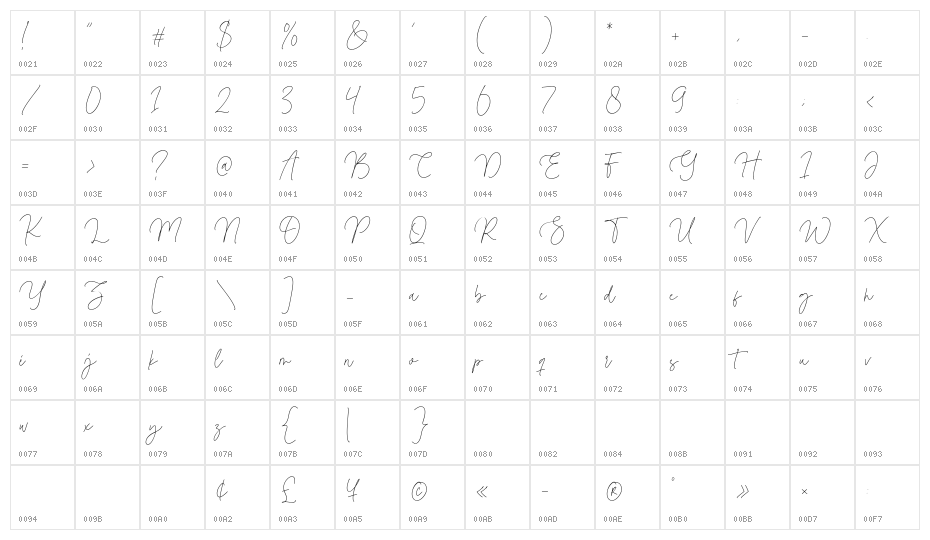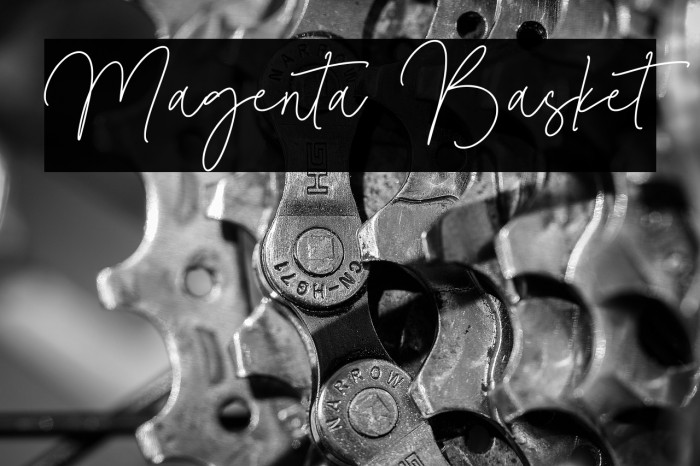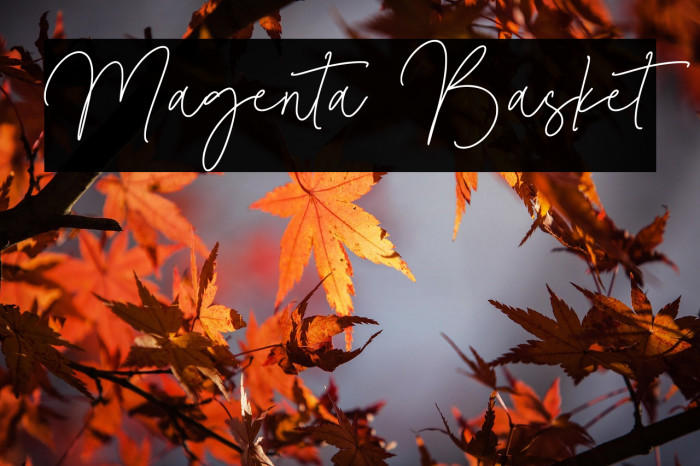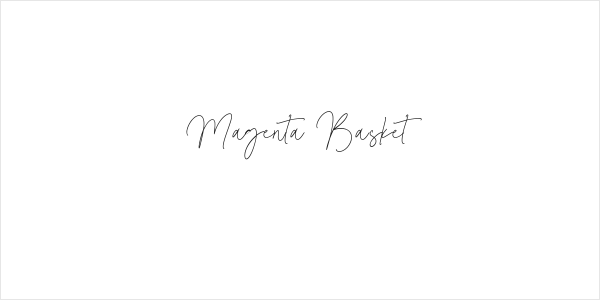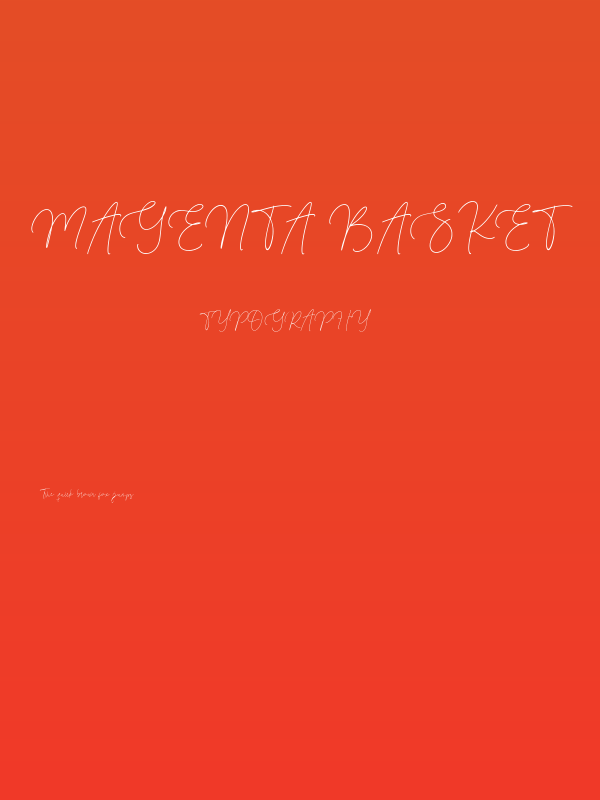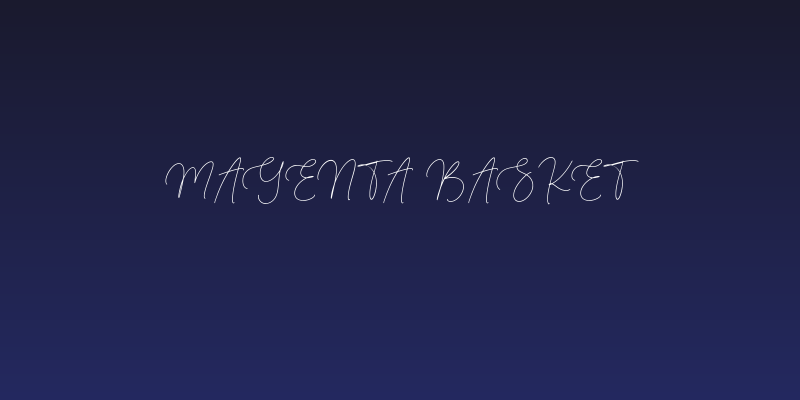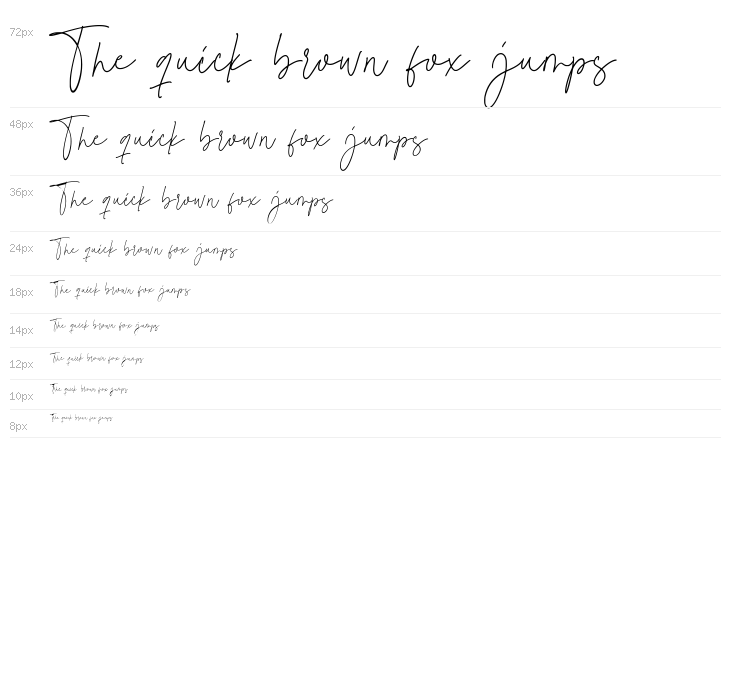
Magenta Basket Font
Magenta Basket Description
This font features an elegant and flowing script style, characterized by its delicate, hand-drawn appearance. The letters are connected with smooth, continuous strokes, giving it a natural and organic feel. The uppercase letters are slightly more ornate, with graceful loops and curves, while the lowercase letters maintain a consistent, flowing rhythm. The numerals and special characters complement the alphabet with their slender and stylish design. This font exudes a sense of sophistication and charm, making it ideal for projects that require a personal touch.
| Overall Style | Elegant, Handwritten |
| Proposed Projects | Ideal for wedding invitations, greeting cards, personal branding, and elegant stationery. |